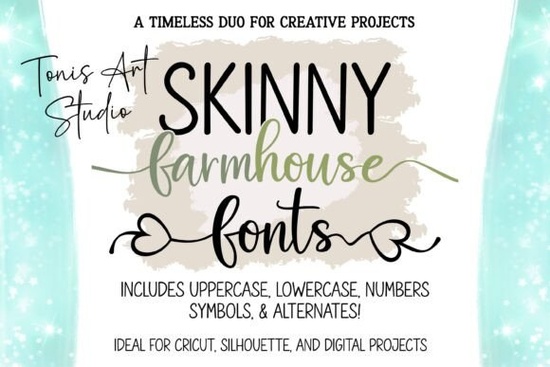
Designers, crafters, and small business owners looking for a versatile font that combines rustic charm with modern appeal will find the Farmhouse Script & Skinny Farmhouse Font to be a valuable addition to their toolkit. This duo offers two distinct styles that work well together, making it ideal for everything from branding projects to handmade cards and social media graphics.
The Farmhouse Script is a flowing, handwritten-style font that adds a personal, artistic touch to any design. It includes optional tail and heart alternates, which can be used to create a whimsical or decorative effect. This makes it perfect for invitations, logos, and other creative projects where a custom feel is desired. The Skinny Farmhouse font complements the script with its clean, minimalist style. Its bold, uppercase letters provide a strong visual contrast while maintaining a cohesive look when paired together.
Whether you're working on a print-on-demand product, a website header, or a social media post, this font duo offers flexibility and style. The combination of a script and a sans-serif font ensures that your designs remain readable and professional while still having a unique personality. This is especially useful for businesses that want to maintain a consistent brand identity across multiple platforms.
If you're creating content for social media, these fonts can help your posts stand out. They’re particularly effective for food-related content, home decor, or lifestyle branding. Their casual yet refined look appeals to a wide audience, making them a great choice for anyone targeting a modern, down-to-earth aesthetic.
One of the main advantages of this font set is its versatility. The Farmhouse Script & Skinny Farmhouse Font can be used in both digital and print formats, ensuring that your designs look great no matter where they appear. The contrast between the two styles adds visual interest without being overwhelming, making it easy to balance elements on a page or screen.
The Farmhouse Script & Skinny Farmhouse Font is a practical and stylish choice for designers and creators who want to add a touch of rustic elegance to their work. Its combination of a flowing script and a clean, bold sans-serif makes it adaptable for a variety of uses. Whether you're designing for a small business, a personal project, or a print-on-demand product, this font duo can help elevate your visual content with minimal effort.